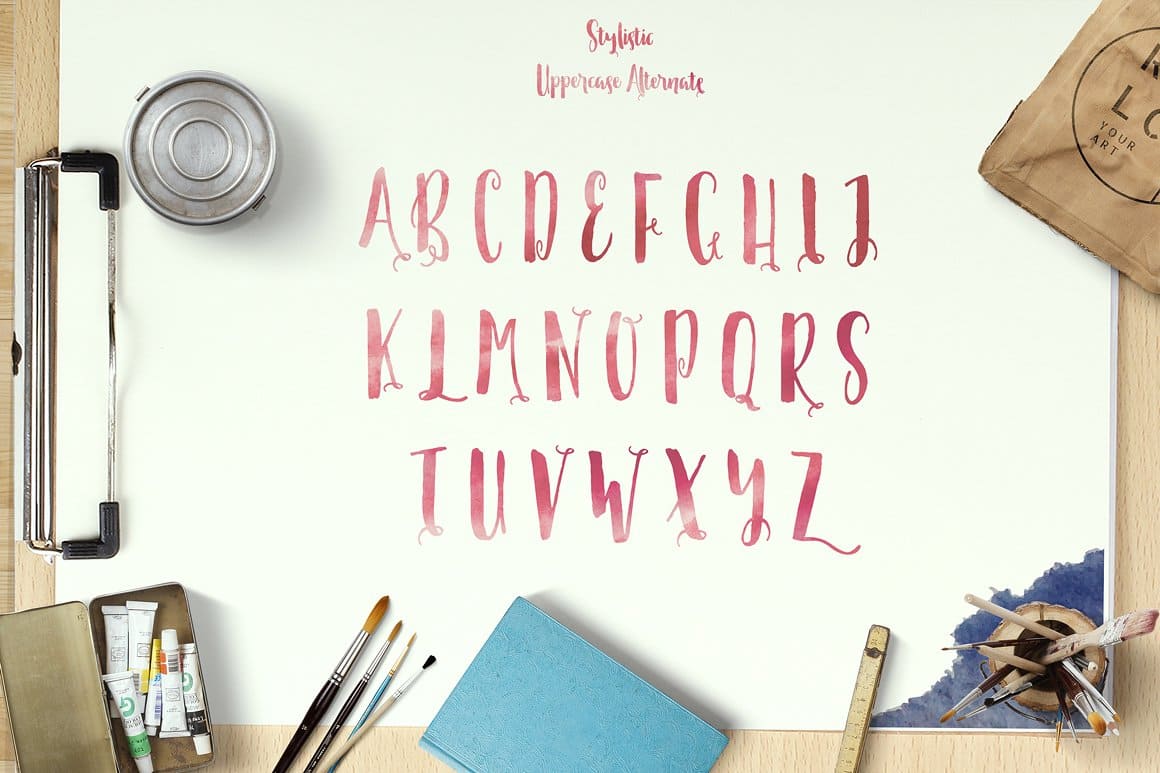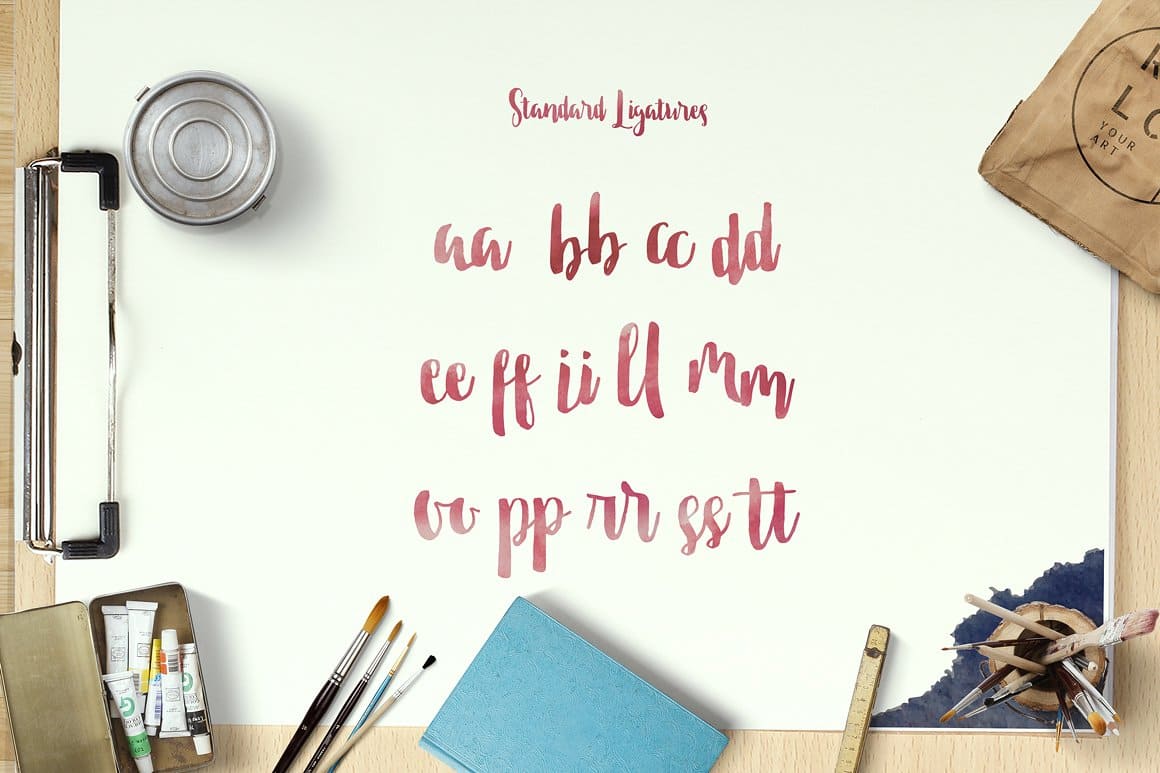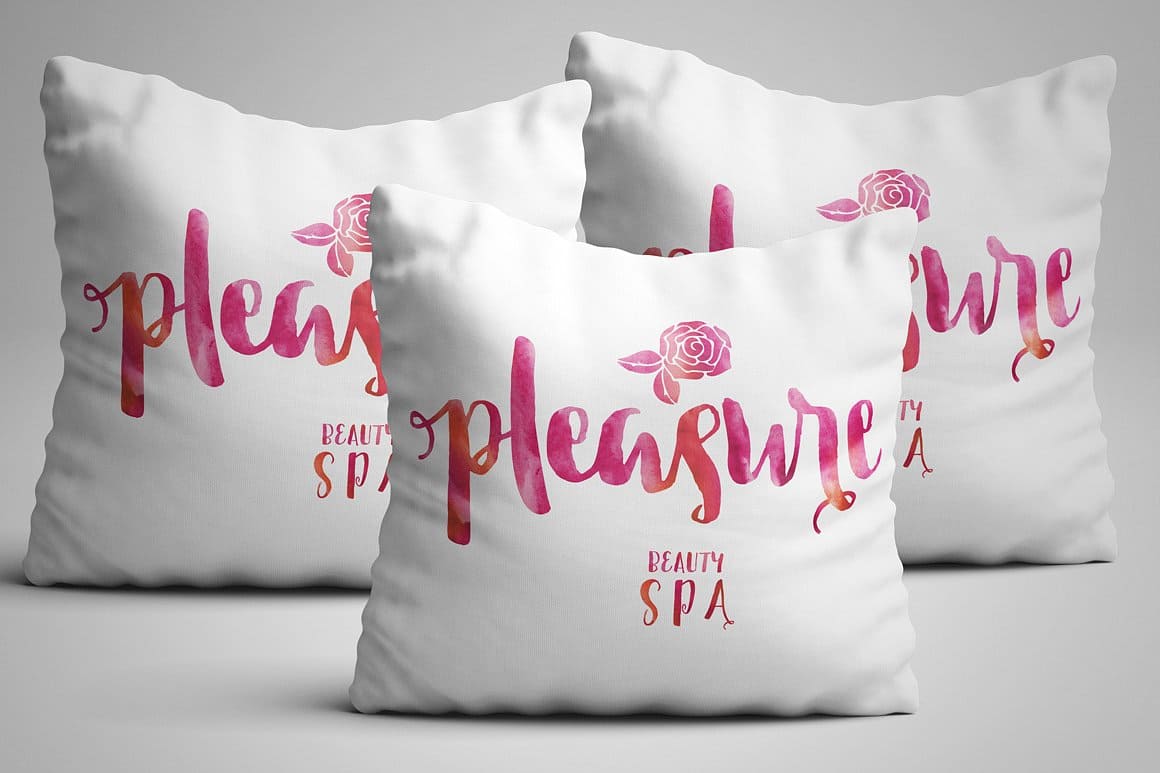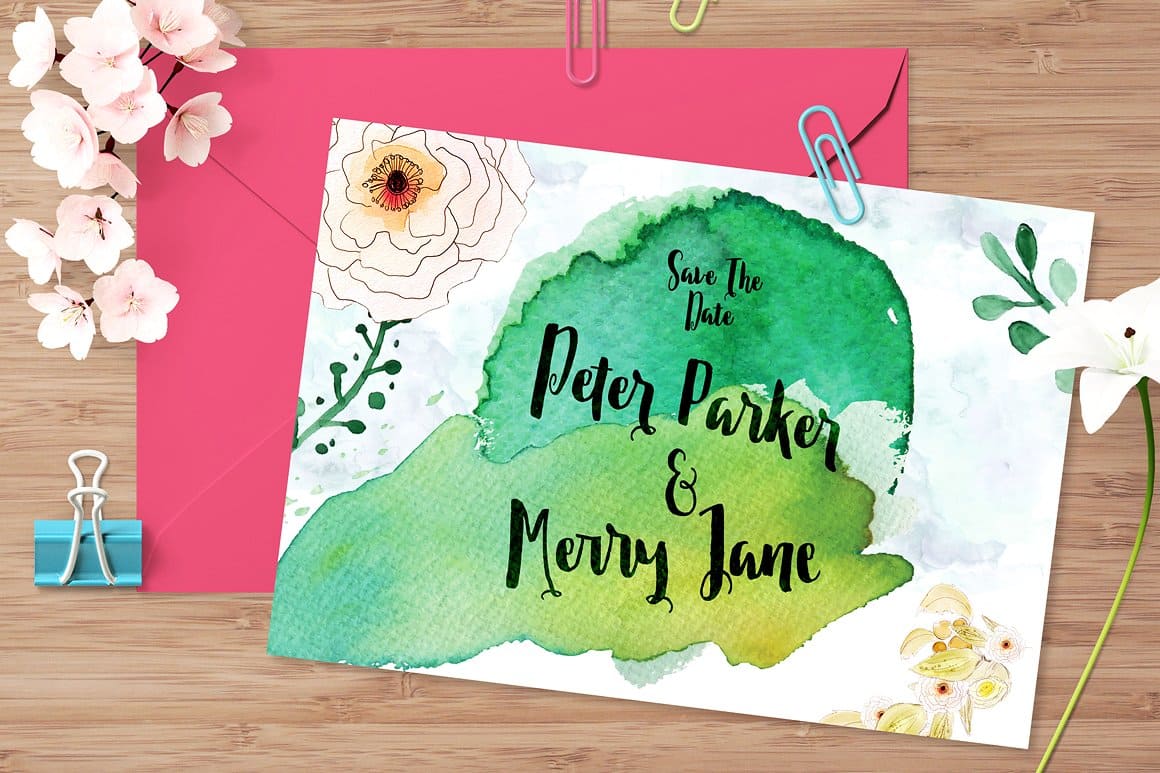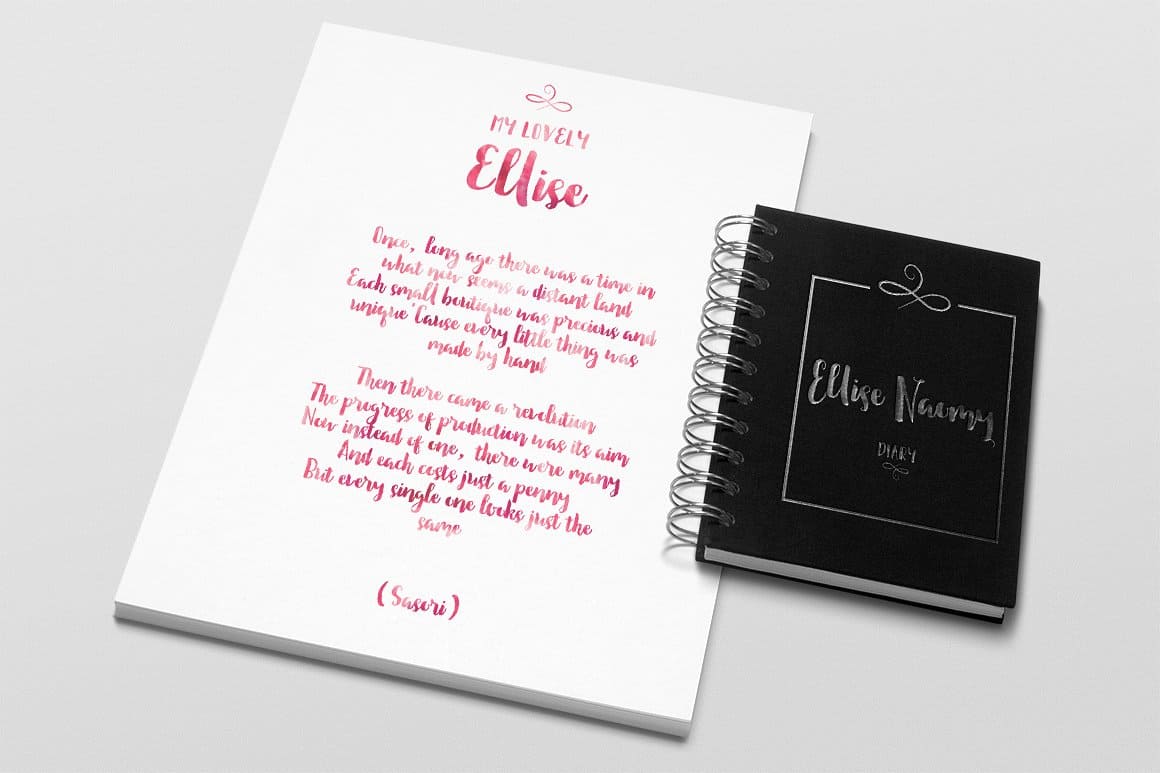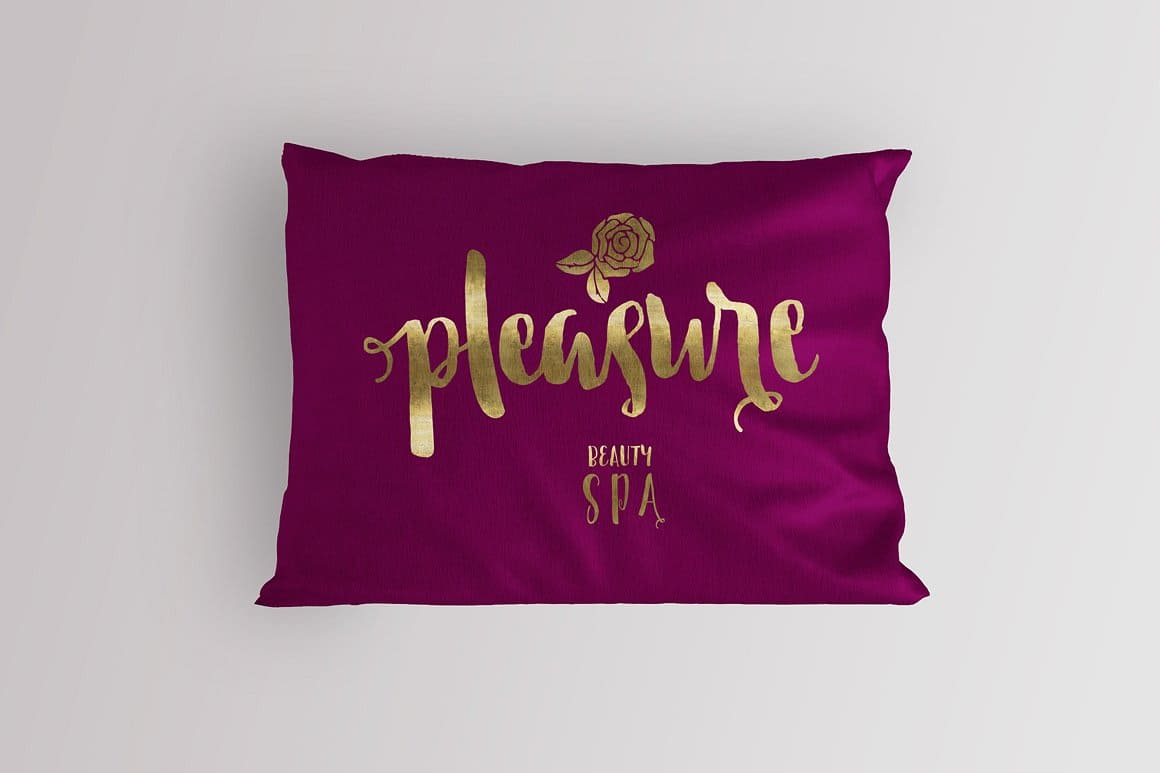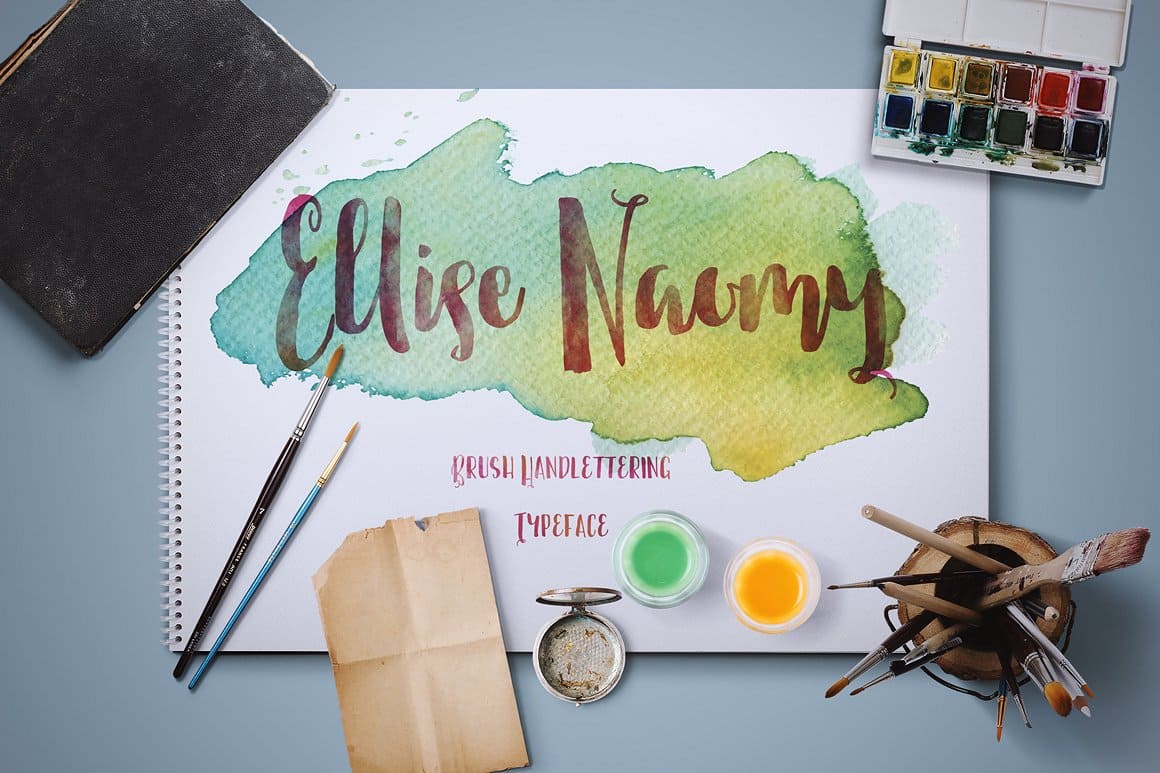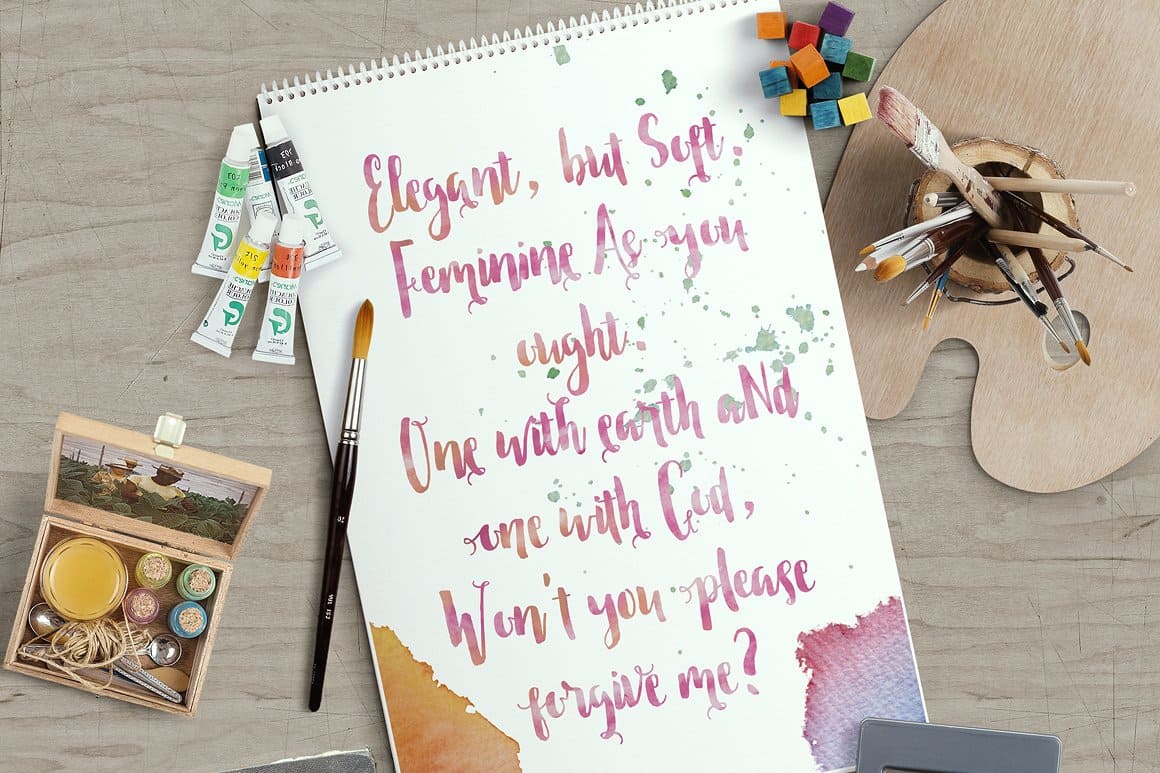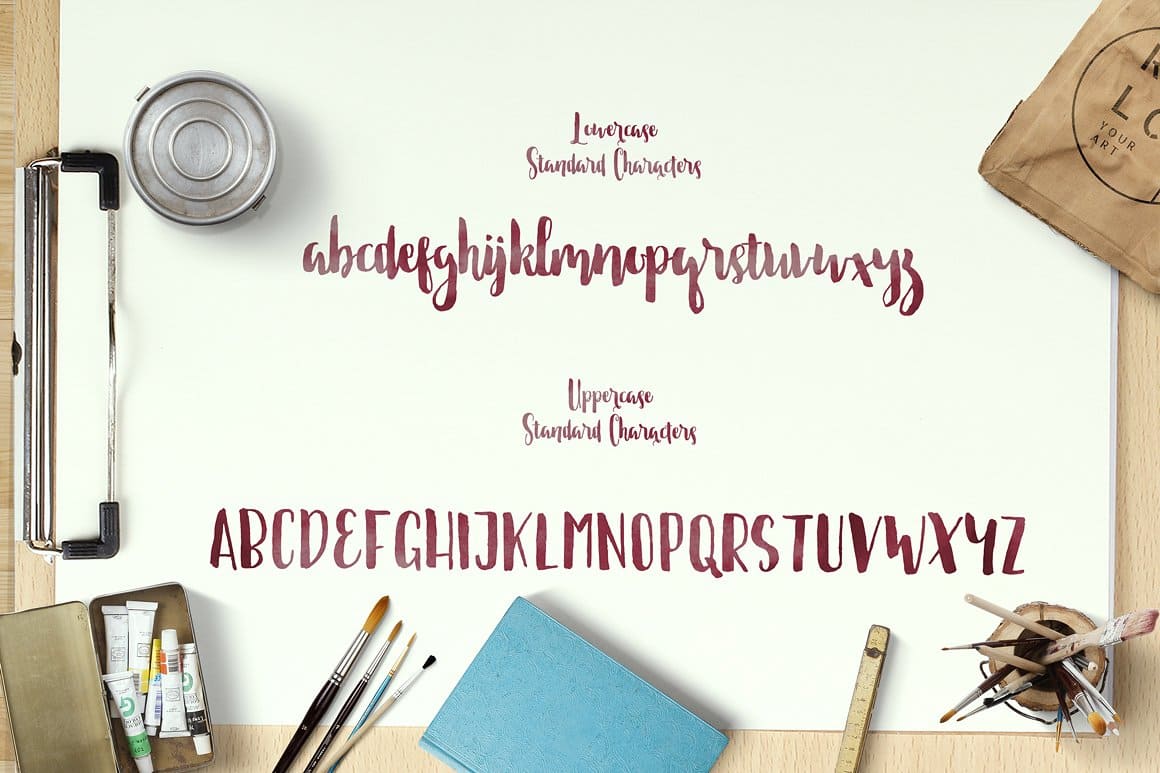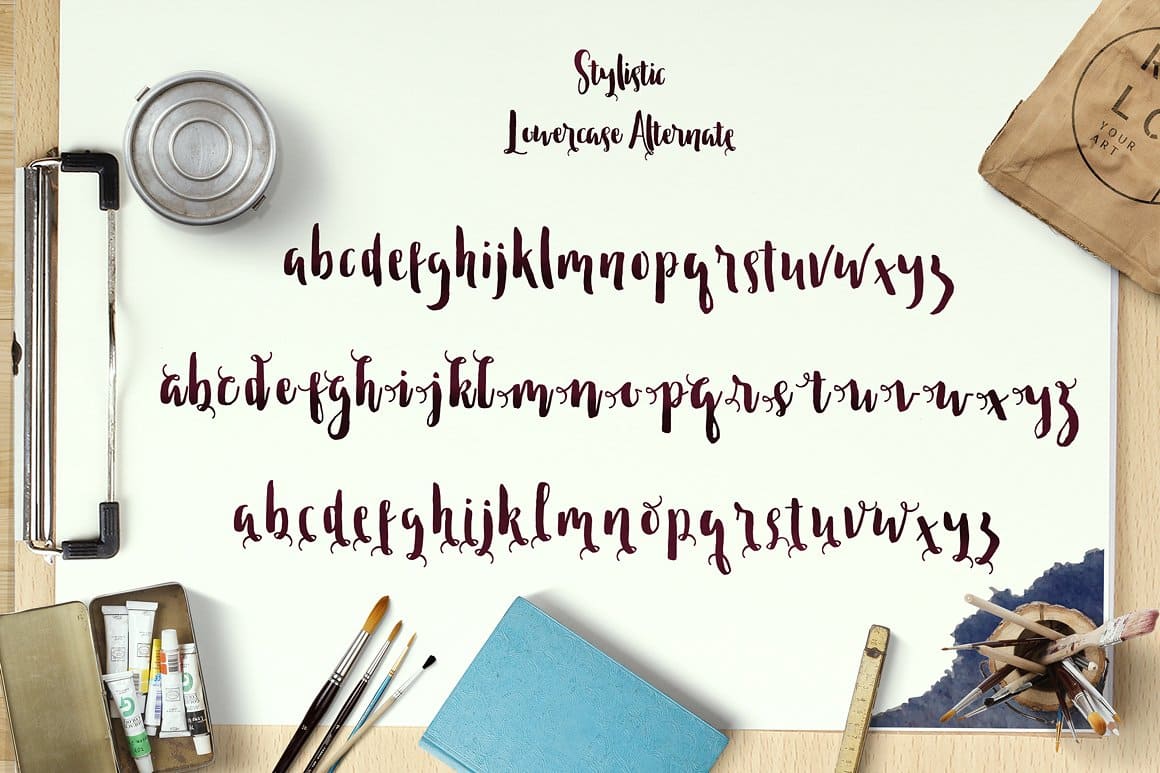
Ellise Naomy Script (1 font)
Ellie Naomy is designed with OpenType features, 339 glyphs, and 118 alternate characters. The font also includes Standard Ligatures and stylistic alternate characters allowing you to make each word look elegant and professional. All special characters can be accessed by using OpenType savvy programs such as Adobe Illustrator, Adobe InDesign, Quark Express, CorelDraw X6-X7, Microsoft Word 2010, or later versions.